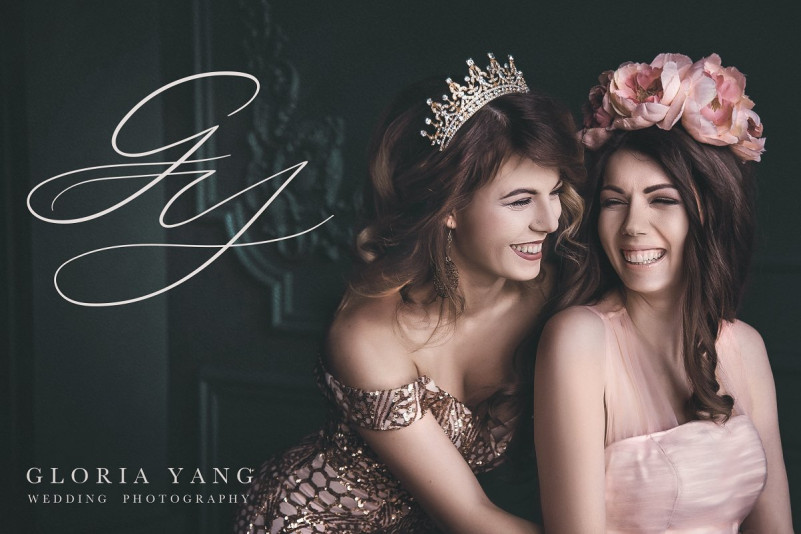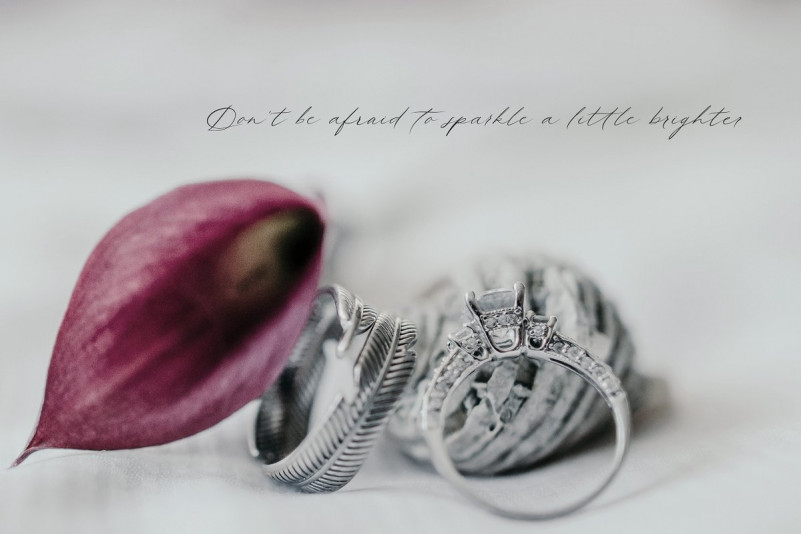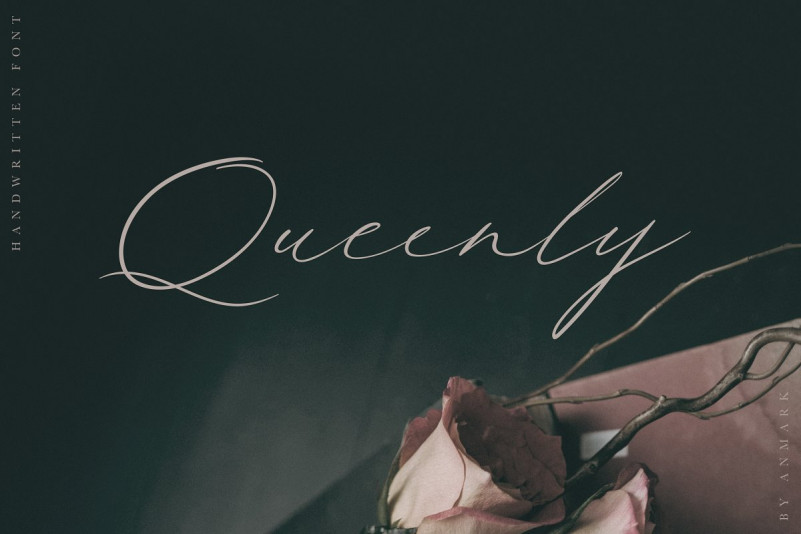
Queenly Font
Queenly is an elegant, feminine font. Modern calligraphy uppercase letters are ideal for your wedding monograms and logos. Use this font for wedding invitations, branding, packaging, magazines, florist shops, social media, restaurant menus, greeting cards, headers and many more.